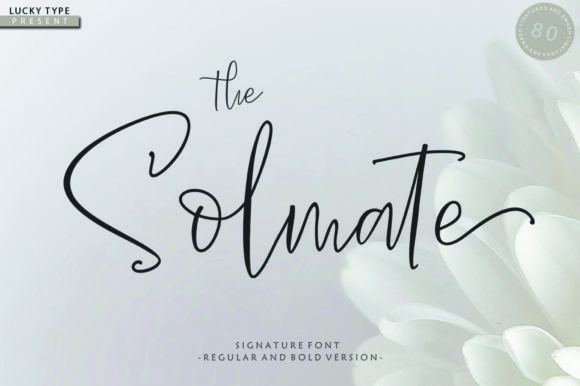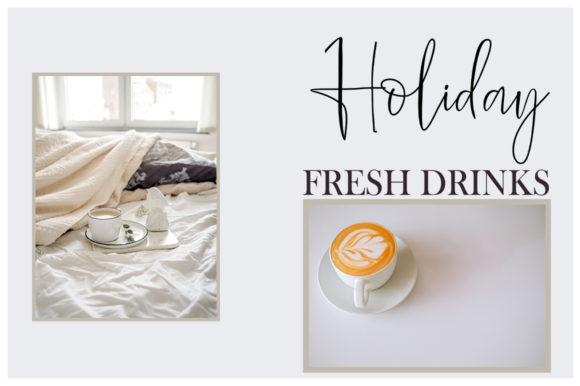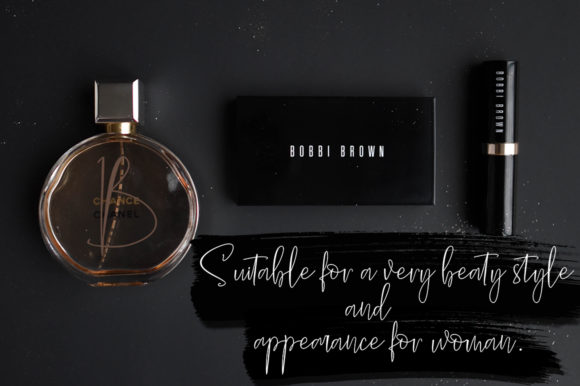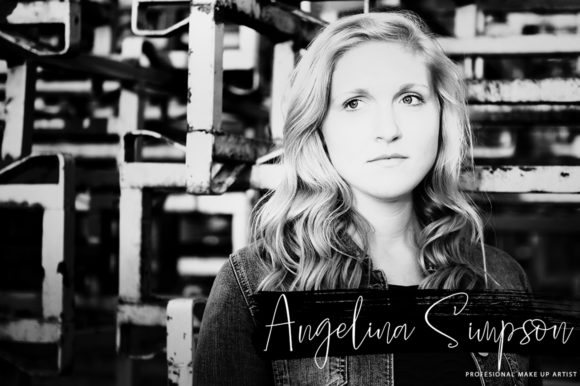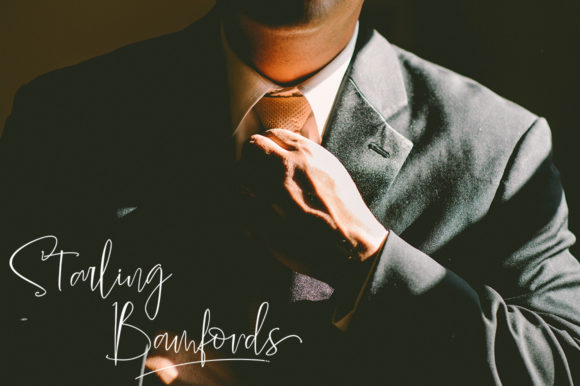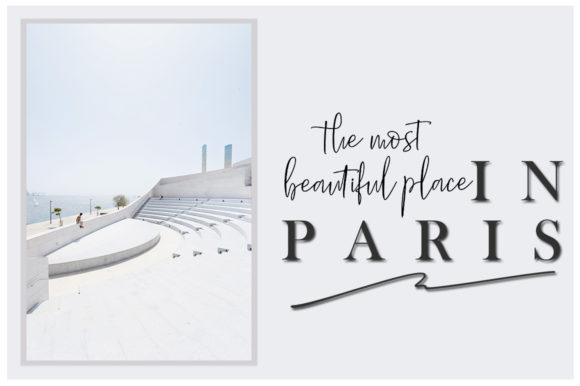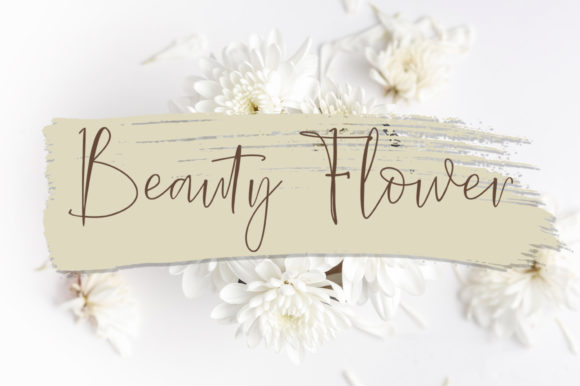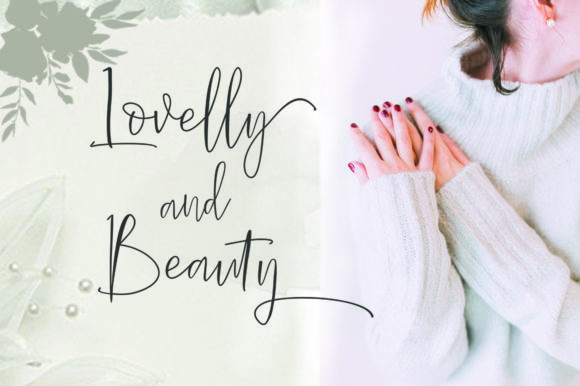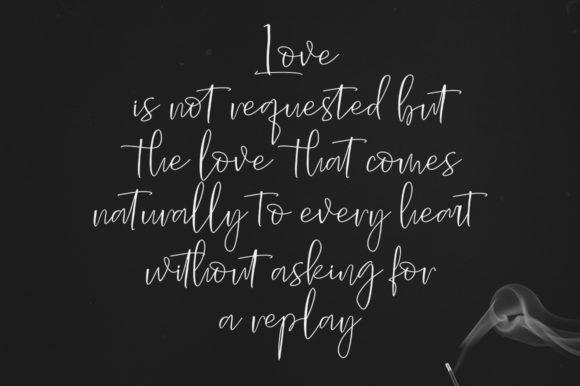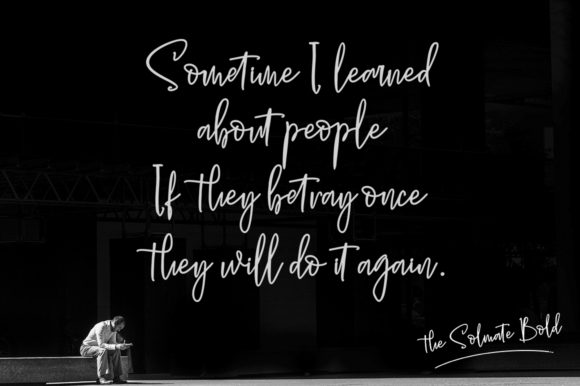
The Solmate Script Font
The The Solmate is a beautiful signature script. It includes thin and elegant letters with a classic feel.
It’s suitable for logos, branding projects, design of household appliances, product packaging, mugs, quotes, posters, shopping bags, and much more!